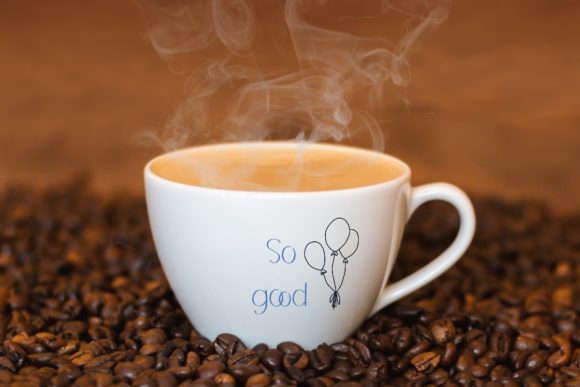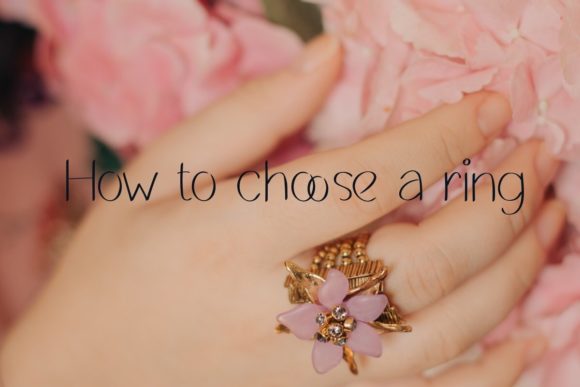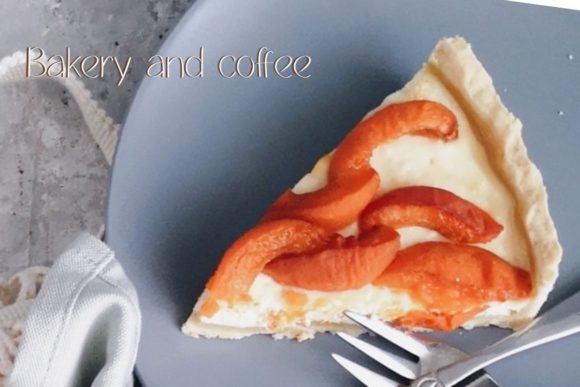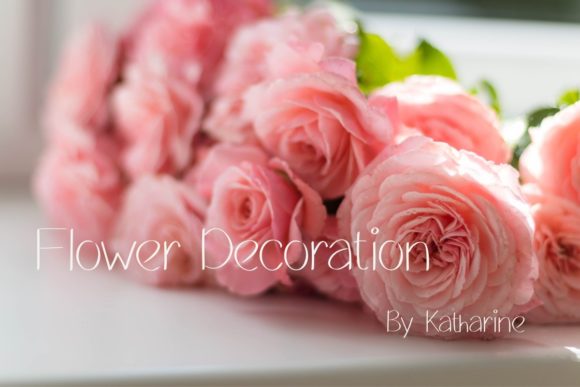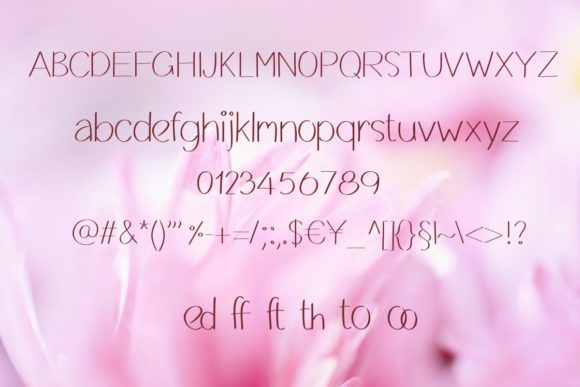
Introduction to Katharine Font Font
Fonts play a crucial role in design, and the Katharine Font font is a typeface that brings both character and versatility to any project. Whether you’re working on a branding project, a website, or a print design, the Katharine Font font offers a unique style that can elevate your work.
Katharine is a sweet and thin lettered handwritten font.
Dainty and joyful, this font will be ideal for writing wedding invitations, cards or any other design that may need a romantic, personalized touch .
Key Features of Katharine Font Font
Why Choose Katharine Font Font?
The Katharine Font font is more than just a typeface – it’s a design tool that helps you communicate your message with style and clarity. Its unique character set and versatile design make it suitable for a wide range of applications, from elegant invitations to bold headlines.
With its carefully crafted letterforms and balanced proportions, the Katharine Font font ensures readability and visual appeal across all mediums.
What makes Katharine Font font special?
The Katharine Font font stands out with its unique design, exceptional readability, and versatility across various design applications.